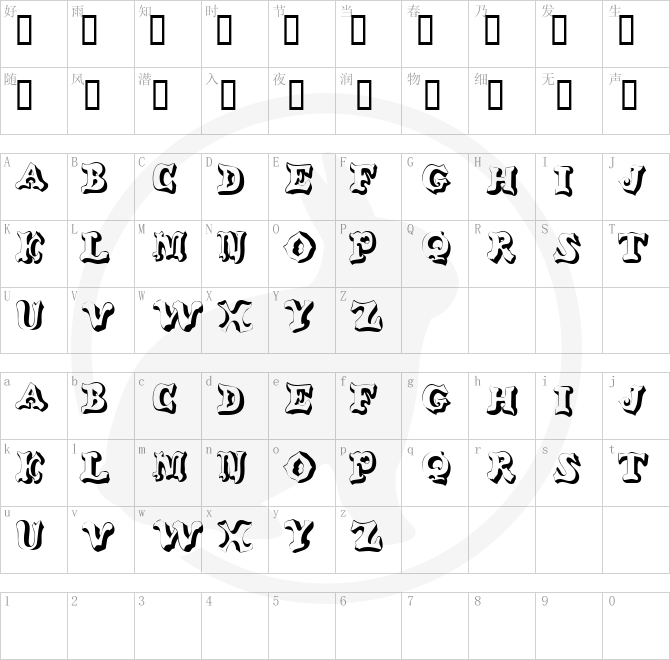
- Font Name:WahooDisplayCapsSSK
WahooDisplayCapsSSK.ttf is a very beautiful artistic font, WahooDisplayCapsSSK.ttf is widely used in the design and printing of various books and pictures,WahooDisplayCapsSSK.ttf has a strong visual impact,WahooDisplayCapsSSK.ttf is a commonly used font in newspapers, magazines and books, and is used in posters, e-commerce Poster design, store design, logo design, font design and other fields.WahooDisplayCapsSSK.